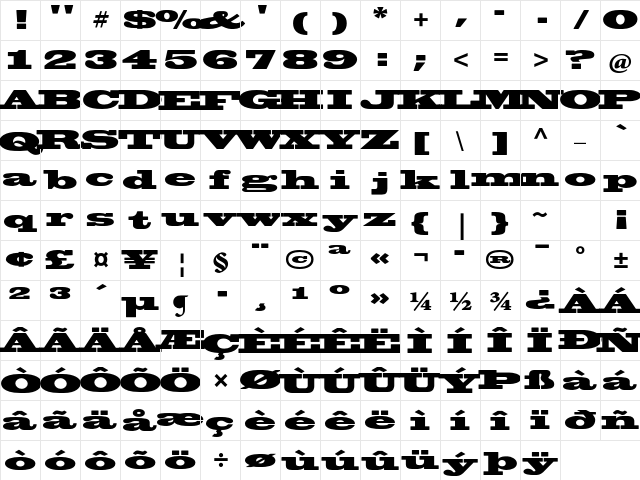
Blackoak Std Regular
| Designer | Joy Redick |
Design Context for Blackoak Std Typeface
Blackoak Std is a composed and adaptable typeface that performs quietly and consistently across a wide range of design contexts.
First published in 1991, this typeface is available in OpenType (OTF) format.